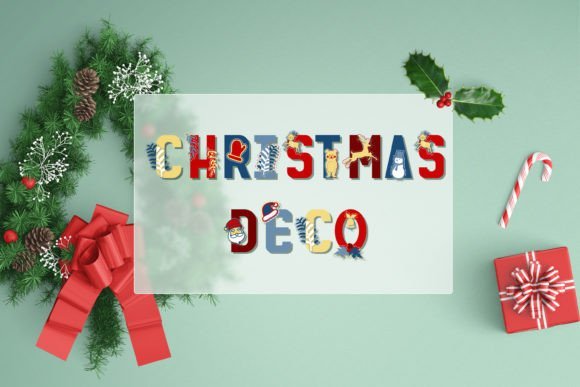
Deck the Halls with Holiday Cheer: Introducing Christmas Deco Font
It’s the most wonderful time of the year – the time when creativity knows no bounds, and the possibilities are endless. As designers, we’re no strangers to the joy of crafting unique and festive content for the holiday season. And what better way to get into the spirit than with a font that embodies the magic of Christmas?
Meet the Christmas Deco Font, a vibrant and whimsical typeface that’s bursting with cute elements and colorful charm. Perfect for logos, branding, greeting cards, posters, social media, and print-on products like mugs or shirts, this font is a holiday designer’s dream come true.
With the Christmas Deco Font, you’ll have the power to create eye-catching designs that spread holiday cheer and make your brand stand out from the crowd. Whether you’re a seasoned pro or a budding designer, this font is a valuable addition to your toolkit – and we can’t wait to see what festive masterpieces you’ll create with it!
- Unique Characteristics: Features a festive, hand-drawn design with intricate details, perfect for adding a touch of holiday magic to your designs.
Designer Review: Christmas Deco Font
Overall, I think Christmas Deco Font is a charming addition to any holiday-themed design project. ✨ It has a beautiful, elegant feel that’s perfect for festive invitations, cards, and advertisements.
- The font’s intricate details and ornate decorations add a touch of luxury and sophistication.
- The font is highly customizable, with many options for color, size, and spacing.
- It’s a great choice for creating a cohesive, festive brand identity.
However, there are a few limitations to consider. ⚠️ The font may not be the best choice for smaller text, as the intricate details can make it difficult to read.
Limits:
- May not be suitable for smaller text sizes.
- Can be difficult to read in certain color combinations.
Overall, I think Christmas Deco Font is a great addition to any holiday design project. With its elegant feel and high level of customizability, it’s a great choice for creating a cohesive, festive brand identity. Just be mindful of the font’s limitations and use it sparingly in smaller text sizes.
Tips for Getting the Most Out of Christmas Deco Font
For best results, use Christmas Deco Font in conjunction with other festive elements, such as holly, snowflakes, or Christmas trees. Experiment with different font sizes and colors to create a unique look. You can also use the font in combination with other fonts for added visual interest.
Christmas Deco Font is ideal for creating festive invitations, holiday cards, and social media graphics. It can also be used to add a touch of holiday cheer to blog posts, newsletters, and other written content.